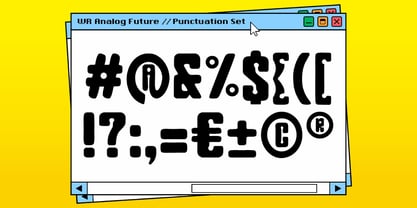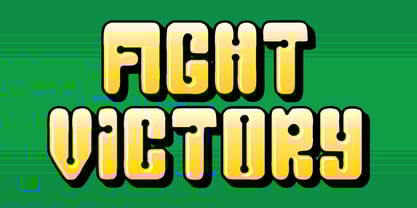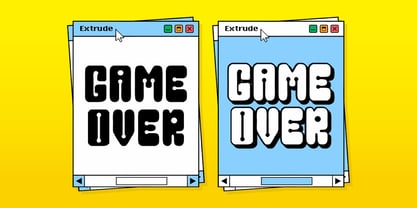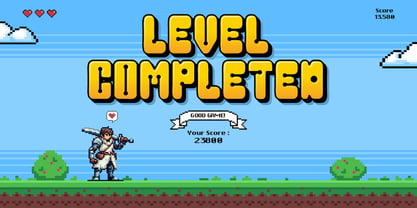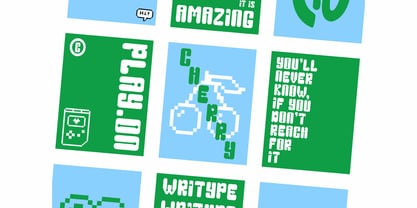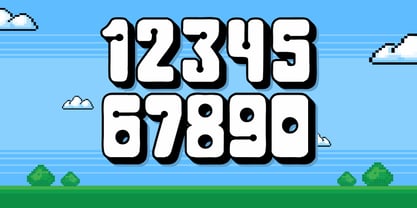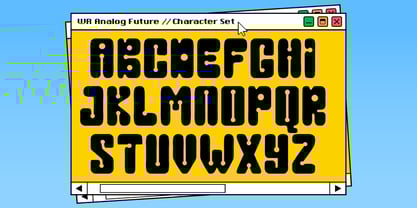
WR Analog Future
by WriType
The WR Analog Future Font Family was designed by Wira Pras and published by WriType. WR Analog Future contains 2 styles and family package options. More about this family
WR Analog Future is a bold, retro-inspired display font with a playful 8-bit gaming aesthetic. Its simple texture, high contrast, and readability on low-resolution screens make it perfect for gaming, nostalgia, and fun creative projects. It's often used to create a retro gaming atmosphere, a competitive atmosphere, or a playful yet futuristic visual identity.